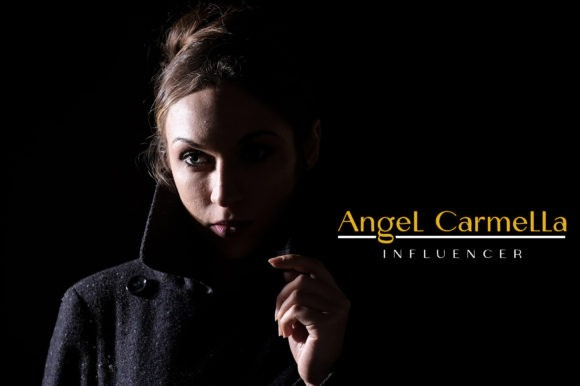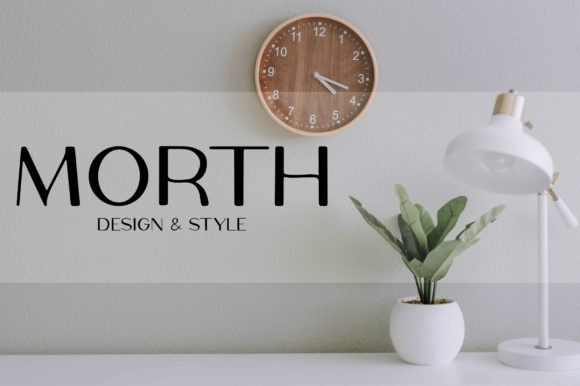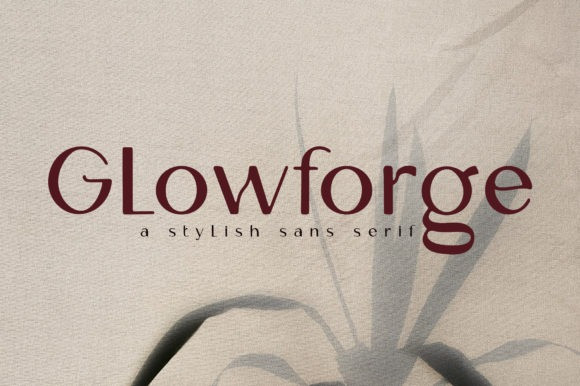
Glowforge Font
Glowforge Sans Serif Font is a stylish and simple lettered sans serif font. Not too thin and not too thick, balanced and varied, Glowforge was designed to enhance the beauty of your projects.